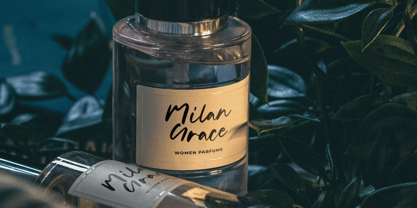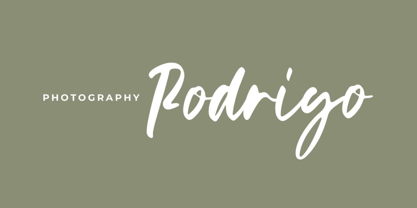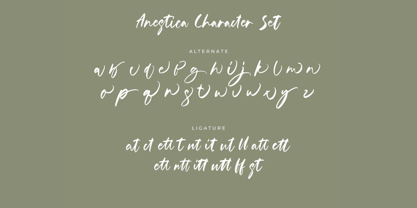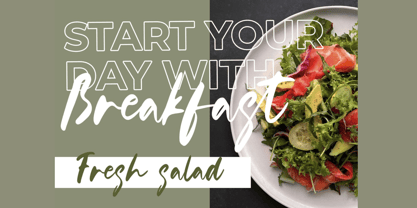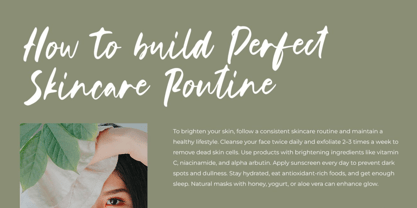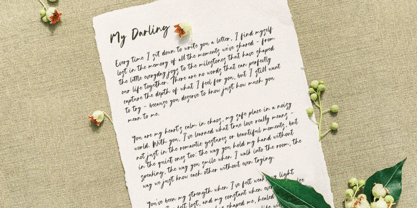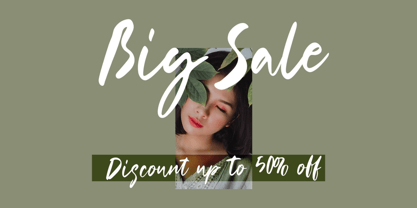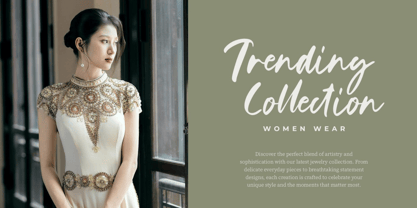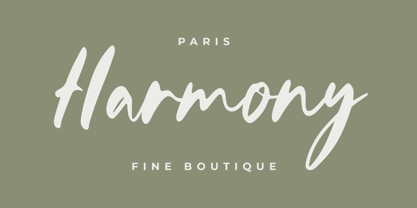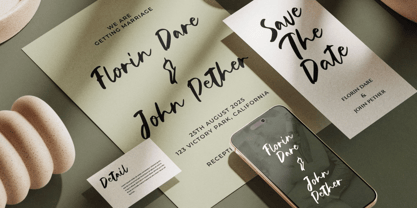
Asikae
The Asikae Font Family was designed by Hasnat Khan and published by Hasnat Studio. Asikae contains 1 styles. More about this family
Asikae is a warm and expressive handwritten script font that captures the sincerity and beauty of real handwriting. With its smooth strokes, organic curves, and subtle imperfections, Asikae brings a natural, personal touch to every design—evoking creativity, authenticity, and emotional connection.
This handcrafted typeface is ideal for a wide range of projects, from wedding invitations and branding to packaging, social media graphics, and lifestyle blogs. Whether you're building a modern chic logo or designing a heartfelt quote, Asikae adds warmth and elegance to your typography.
✿ Key Features:
• Standard Glyphs – Clean and balanced character set for natural flow
• Numerals & Functional Punctuation – Fully equipped for professional design
• Alternates & Ligatures – Add stylish variety and a handwritten feel
• Multilingual Support – Covers 60+ languages including Afrikaans, Irish, Portuguese, and more
✿ Perfect For:
• Logotypes & Personal Branding
• Wedding & Invitation Design
• Quotes & Social Media Posts
• Packaging & Labels
• Photography Watermarks
• Lifestyle Blogs & Print Magazines
• Creative Projects with a Handwritten Touch
Add soul to your work with Asikae, the font that turns every letter into a heartfelt expression.